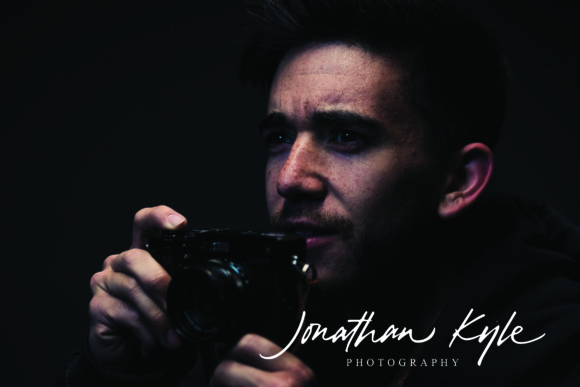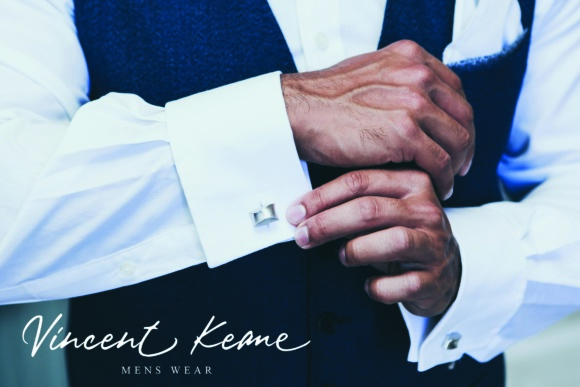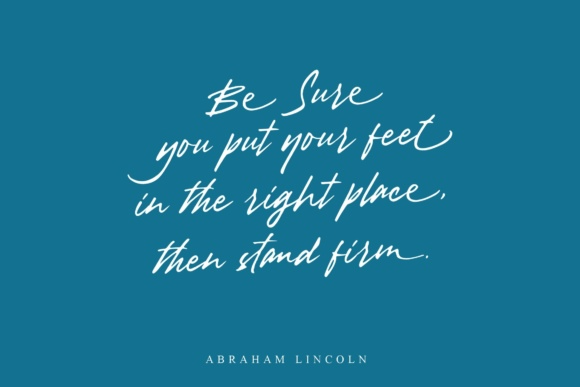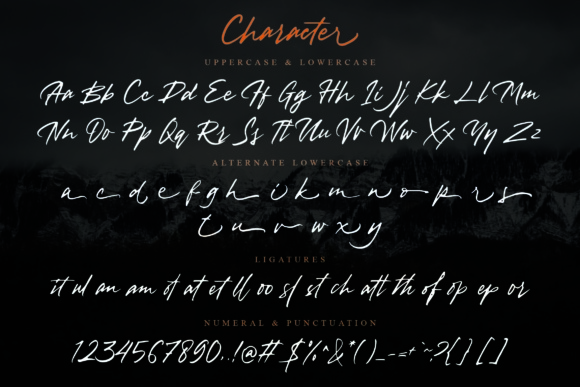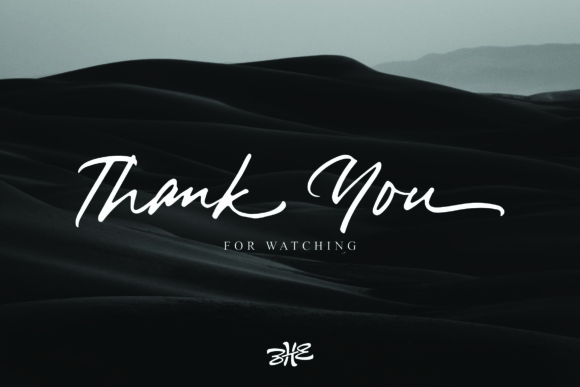
Vedastya Script Font
About Vedastya Script Font
The Vedastya is a beautiful handwritten script. It has a natural, elegant style which is perfect for various designing needs.